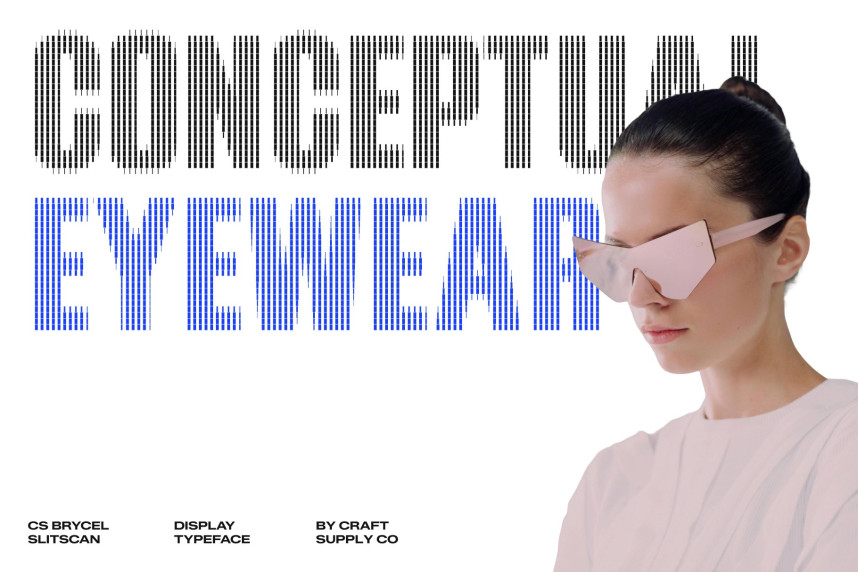
CS Brycel Slitscan Font
CS Brycel Slitscan Font – Condensed Bold Typeface: Where Industrial Power Meets Futuristic Motion
Strong Condensed Forms with Technical Precision
This is a condensed bold display typeface built with an industrial spirit and engineered for visual impact. Its narrow proportions and solid structure create a commanding presence while remaining space-efficient, making headlines feel powerful, focused, and modern. Every letterform is designed to project confidence, strength, and technical precision.